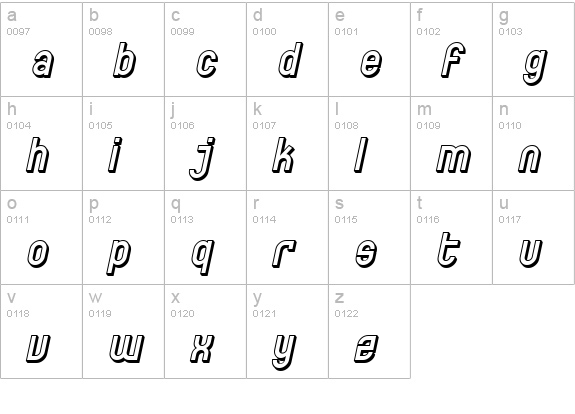
SF Eccentric Opus Shaded Oblique Font Details
SF Eccentric Opus Shaded Oblique is a distinctive, italic variant in the SF typeface family \xE2\x80\x94 well suited to design and typography projects.
SF Eccentric Opus Shaded Oblique font is a truly eccentric and eye-catching typeface that will make your designs stand out from the crowd. With its unique combination of bold shapes, playful curves, and intricate shading, this font exudes a sense of energy and creative flair. Designed with an oblique slant, SF Eccentric Opus Shaded Oblique font adds an extra touch of dynamism to your text. Whether you're designing a logo, poster, or website, this font will bring a sense of excitement and personality to your project. What makes SF Eccentric Opus Shaded Oblique font even more appealing is that it is freely available to download at FontsMarket.com. This means that you can enhance your designs with this captivating font without any financial constraints. Its availability for free allows you to explore your creativity and experiment with different design possibilities. Whether you're a professional designer or a hobbyist, SF Eccentric Opus Shaded Oblique font offers a great opportunity to take your designs to the next level. Its bold and eccentric style will leave a lasting impression on your audience, making your work truly memorable. So go ahead and download SF Eccentric Opus Shaded Oblique font from FontsMarket.com today. Let your imagination run wild and create designs that are truly one-of-a-kind. With this font, you have the freedom to express your creativity and make a statement in the world of design.